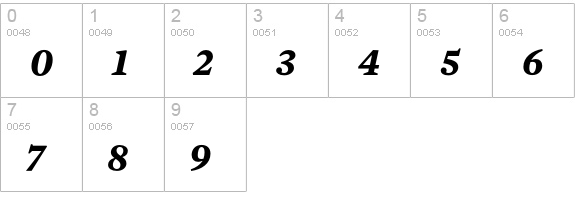
Mercury Text G4 Bold Italic Font Details
Mercury Text G4 Bold Italic is a strong, high-contrast, italic variant in the Mercury typeface family \xE2\x80\x94 well suited to headlines, attention-grabbing titles, and strong calls-to-action.
Mercury Text G4 Bold Italic font is a dynamic and versatile typeface that exudes confidence and modernity. Its bold yet elegant design makes it perfect for creating eye-catching headlines, signage, and branding materials. The italicized style adds a touch of sophistication and flair to any project, making it stand out from the crowd. Best of all, Mercury Text G4 Bold Italic font is available for free download at FontsMarket.com. With its seamless legibility and stylish appearance, this font is sure to elevate your designs to the next level. Whether you're working on a print or digital project, this font is a must-have addition to your collection. Download it today and unleash your creativity with Mercury Text G4 Bold Italic font.